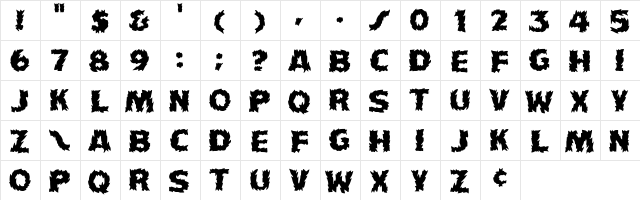
HFF Fire Dancer Regular
Design Context for HFF Fire Dancer Typeface
HFF Fire Dancer is a composed and adaptable typeface that performs quietly and consistently across a wide range of design contexts.